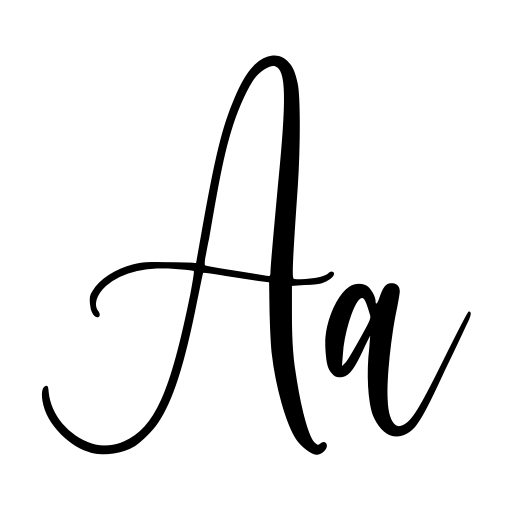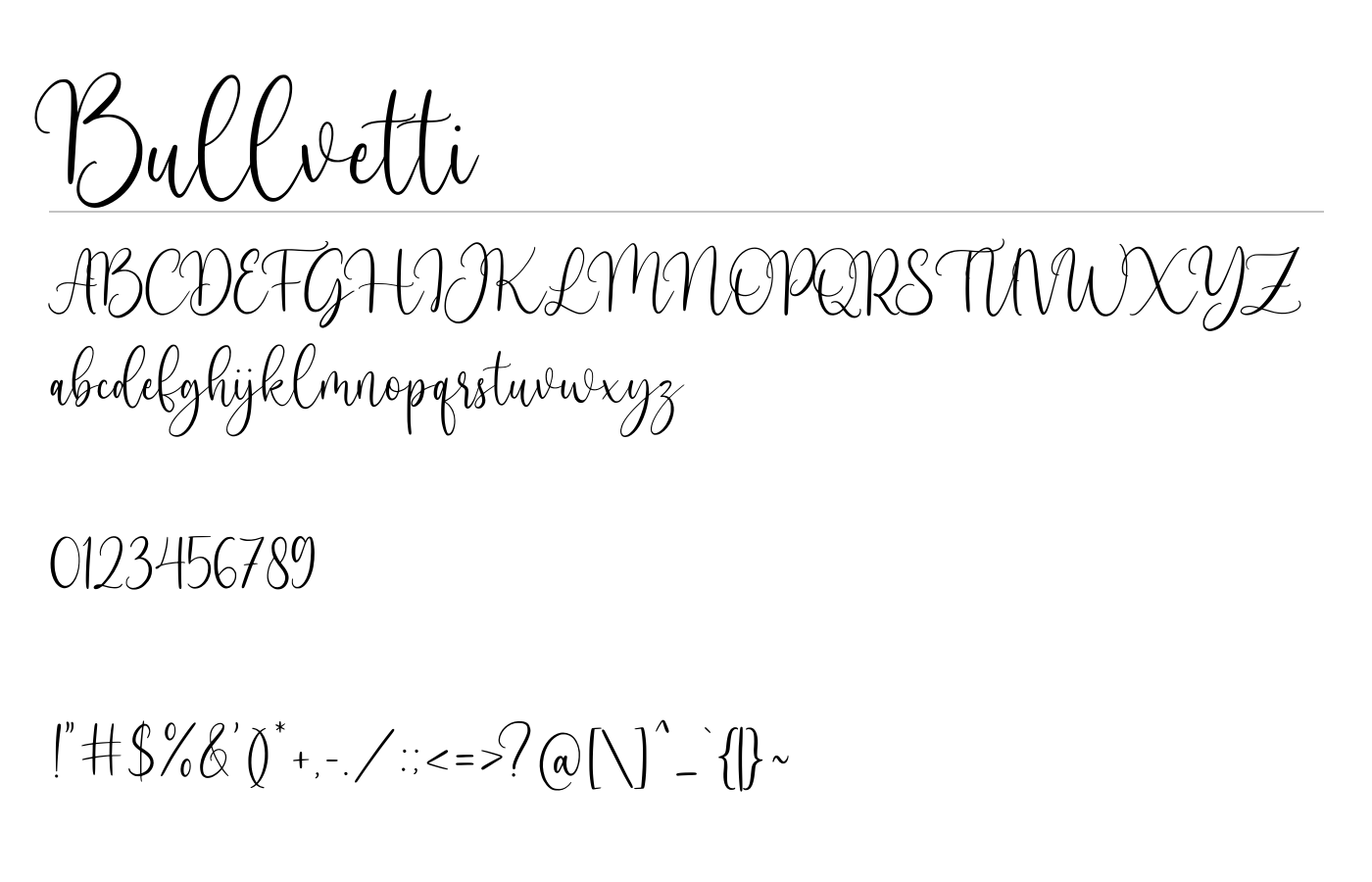
Bullvetti is an elegant, handwritten script font characterized by its thin, flowing strokes and delicate curves that create a graceful and sophisticated appearance. Its tall x-height and airy spacing enhance readability while maintaining a stylish, personal touch, making it ideal for wedding invitations, luxury branding, and fashion packaging. This font brings a refined, charming feel to any design, perfect for conveying elegance and warmth.
Bullvetti Font
About Bullvetti Font
| Font family | Bullvetti Font |
| Designer | Novia Himatunnisa |